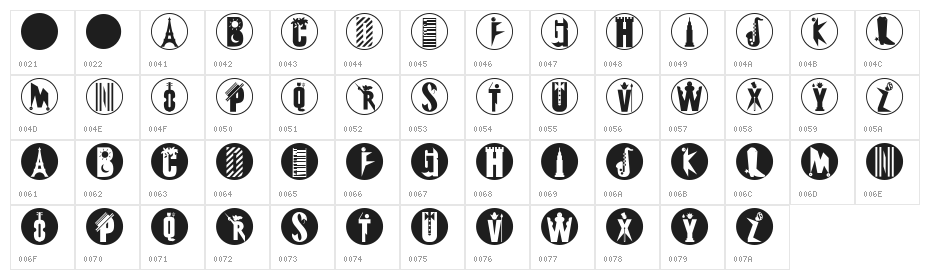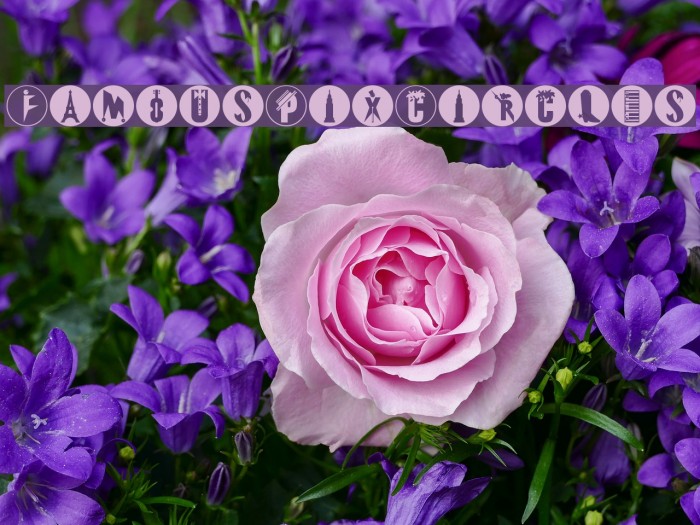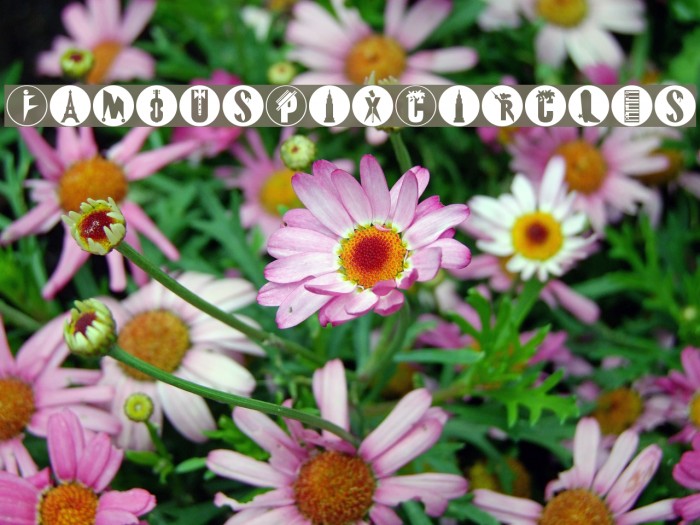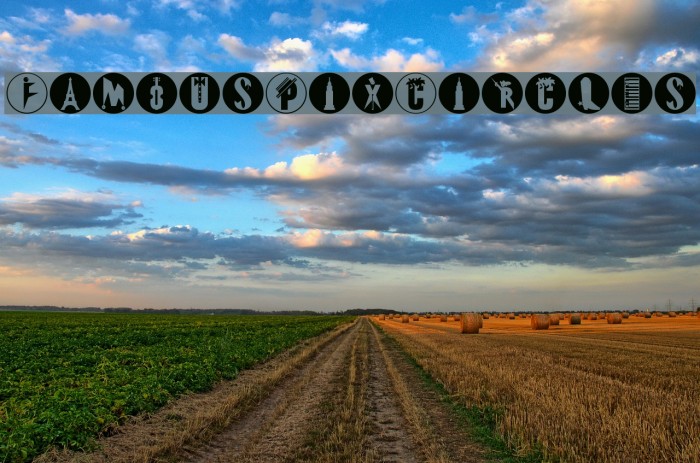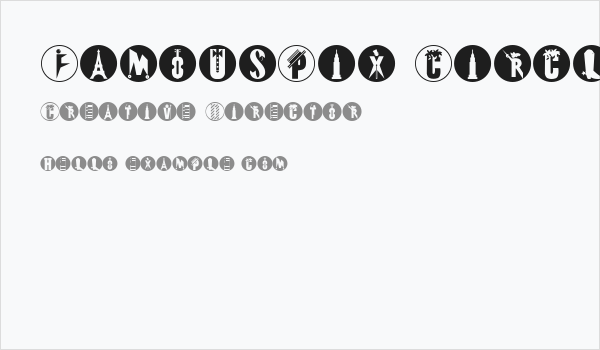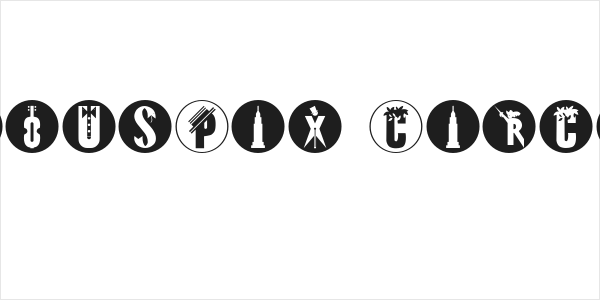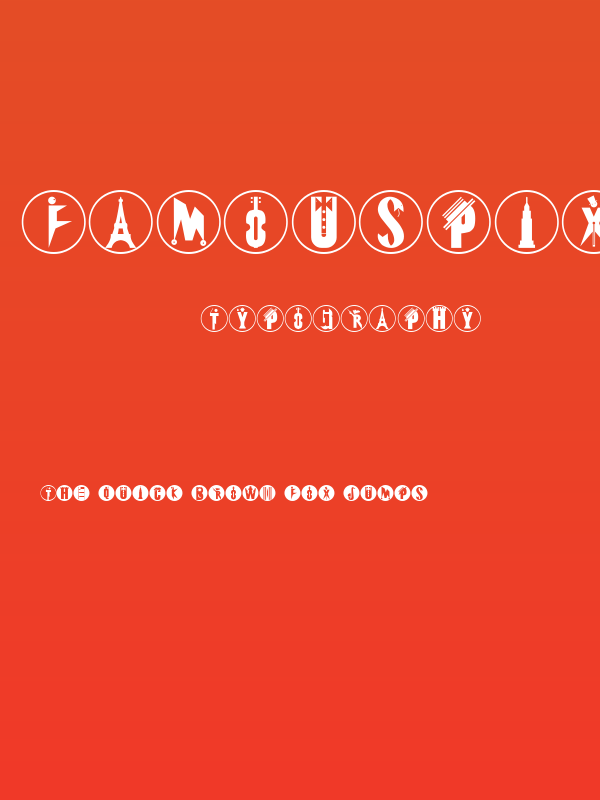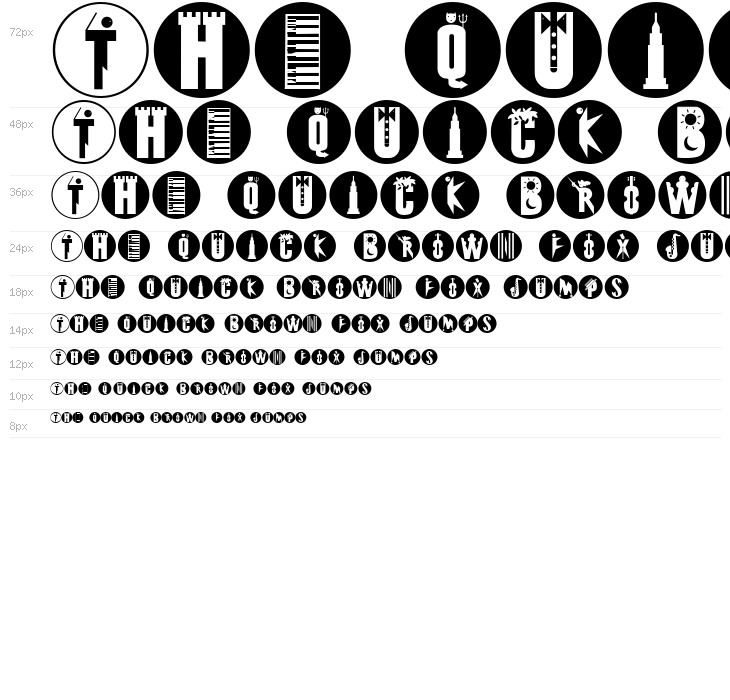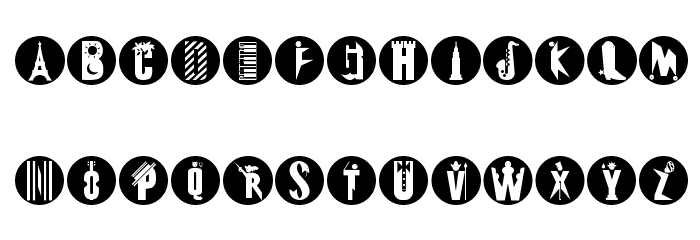
FamousPix-Circles Font
FamousPix-Circles Description
This font features a unique and playful design where each letter is encapsulated within a circle. The characters are creatively styled with various thematic elements, such as architectural motifs, musical instruments, and abstract shapes, giving each letter a distinct personality. The use of both positive and negative space within the circles adds to the visual intrigue, making it a standout choice for creative projects. The font's decorative nature and high contrast between the black and white elements make it eye-catching and suitable for artistic and thematic applications.
| Use Case | Headlines, Logos, Artistic projects |
| Proposed Projects | Ideal for posters, album covers, event invitations, and any project needing a bold, artistic touch. |